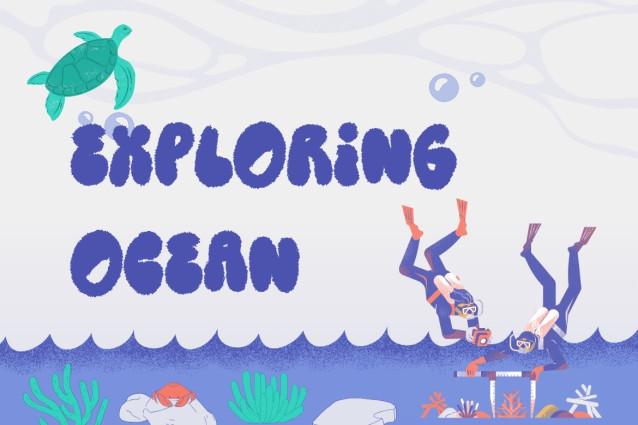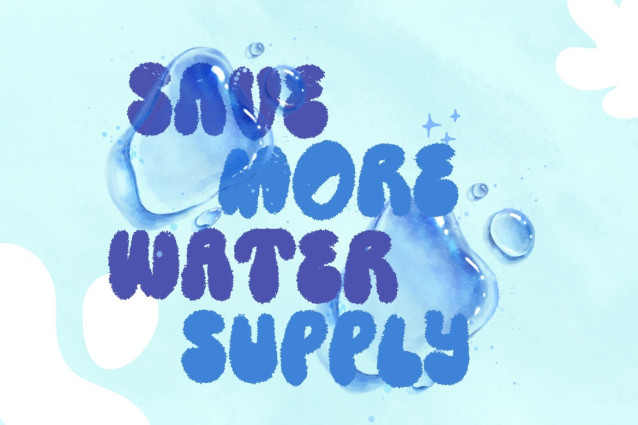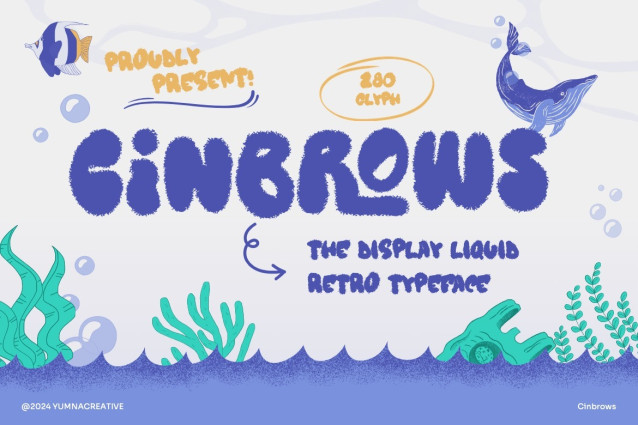
Introducing **Cinbrows – Liquid Retro Font**
This Font is a delicate, elegant and flowing handwritten font. It has beautiful and well as a unique blend of ligatures a letter, so that the authors compose it with a and little swirly embedding, so that a modern font is formed and ready to make a statement by adding elegant and unique flair to your next design project. Add it to your most creative ideas and notice how it makes them come alive!
**FEATURES**
– Uppercase and Lowercase letters
– Ligature
– Numbering and Punctuations
– Multilingual Supports